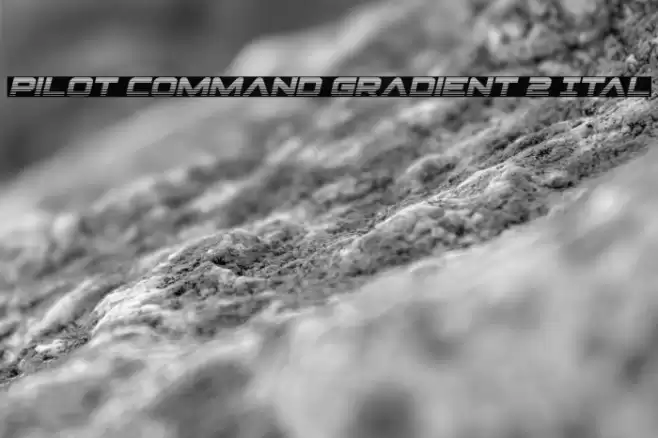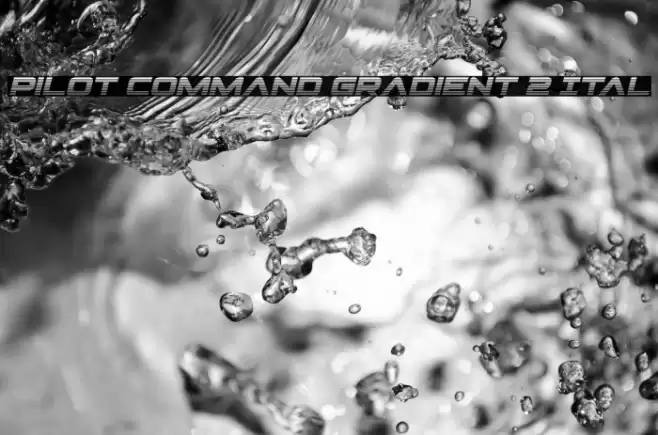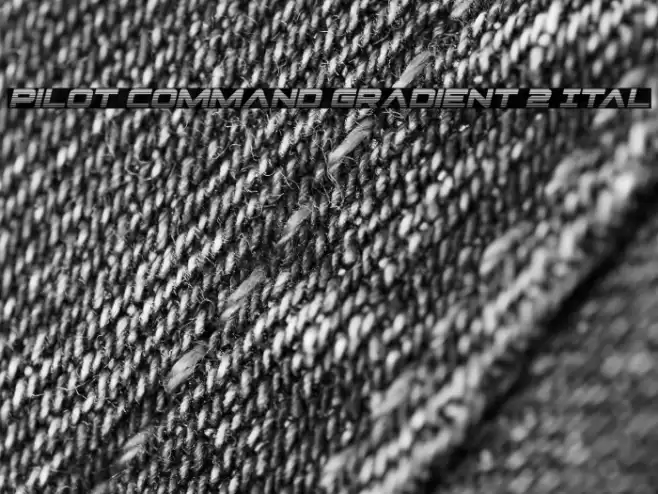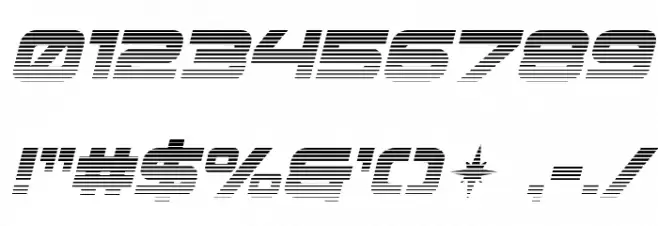
Pilot Command Gradient 2 Ital Font
Pilot Command Gradient 2 Ital Description
This font features a futuristic and dynamic design with a distinct slanted orientation, giving it a sense of motion and speed. The characters are composed of multiple horizontal lines that create a gradient effect, enhancing its modern and technological appearance. The uppercase and lowercase letters maintain a consistent style, with sharp angles and clean edges. The numerals and special characters follow the same design principles, ensuring uniformity across all glyphs. This font is ideal for projects that require a bold, innovative look.
A futuristic, slanted font with a gradient line effect, exuding speed and modernity from Uncategorized fonts.
- Proposed Projects: Ideal for technology branding, sci-fi movie posters, video game titles, and futuristic event invitations.